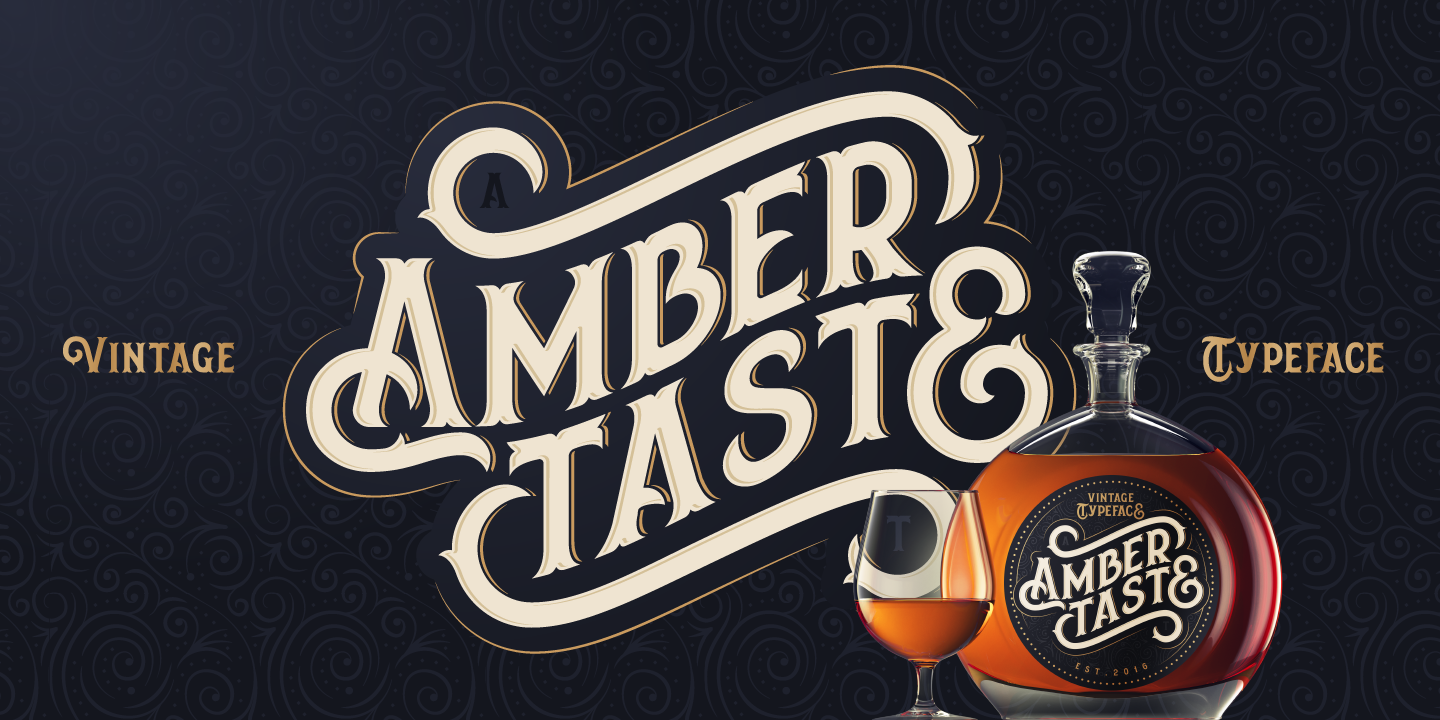
Amber Taste Font is perfect for gourmet restaurant menus, artisan food packaging, whiskey and bourbon labels, autumn-themed designs, luxury confectionery branding, warm café signage, harvest festival posters, and sophisticated culinary magazine layouts.
Amber Taste Font is exciting because it embodies the rich warmth and sophisticated elegance of aged amber, translating these luxurious qualities into typography that immediately evokes feelings of comfort, premium quality, and timeless refinement. This typeface captures the essence of golden hour lighting and artisanal craftsmanship in every letterform.
The Amber Taste Font family includes Regular, Light, Medium, Bold, and Italic variations, along with decorative ligatures and stylistic alternates. Each family member maintains the distinctive golden warmth aesthetic while providing designers with comprehensive options for creating elegant and cohesive typographic systems.
Amber Taste Font stands out in the premium typography landscape due to its ability to convey both luxury and approachability simultaneously. The font's warm character and refined proportions make it particularly effective for brands in the food and beverage industry seeking to communicate quality, tradition, and sensory appeal. Its sophisticated yet inviting personality creates immediate emotional connections with audiences.
The versatile application range of Amber Taste Font makes it exceptionally valuable for hospitality and lifestyle brands. Premium restaurants, craft distilleries, gourmet food producers, and upscale retail establishments frequently utilize this font to establish their premium positioning while maintaining warmth and accessibility. The font's ability to suggest both indulgence and sophistication makes it ideal for luxury consumer experiences.
Design professionals appreciate Amber Taste Font Free Download for its exceptional readability combined with distinctive character. The font's carefully balanced letterforms ensure excellent legibility across various sizes and applications while maintaining its warm, inviting personality. This balance makes it particularly suitable for extensive text applications where both style and function are crucial.
The sensory associations of Amber Taste Font extend beyond visual appeal to evoke memories of comfort, warmth, and quality experiences. Its golden undertones and smooth curves naturally complement autumn color palettes, harvest themes, and cozy interior design aesthetics. This makes it invaluable for seasonal marketing campaigns and lifestyle brands emphasizing comfort and luxury.
Contemporary food and beverage branding demands typography that can convey authenticity and premium quality while remaining accessible to diverse audiences. Amber Taste Font delivers this balance through its refined elegance and approachable warmth, making it suitable for both high-end establishments and artisanal producers seeking to communicate their commitment to quality.